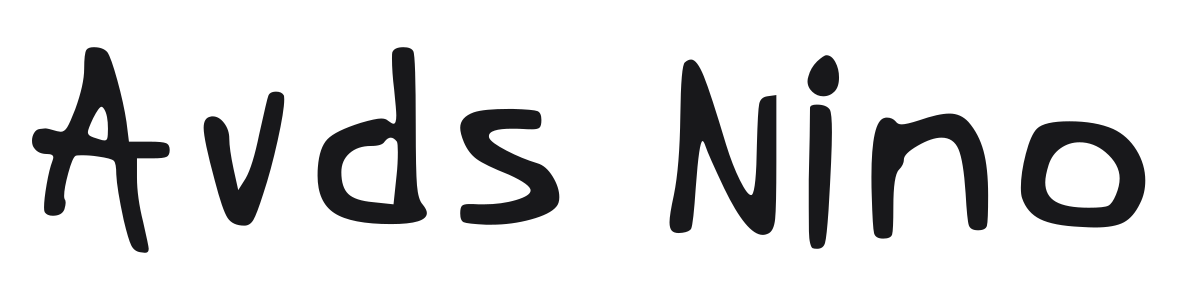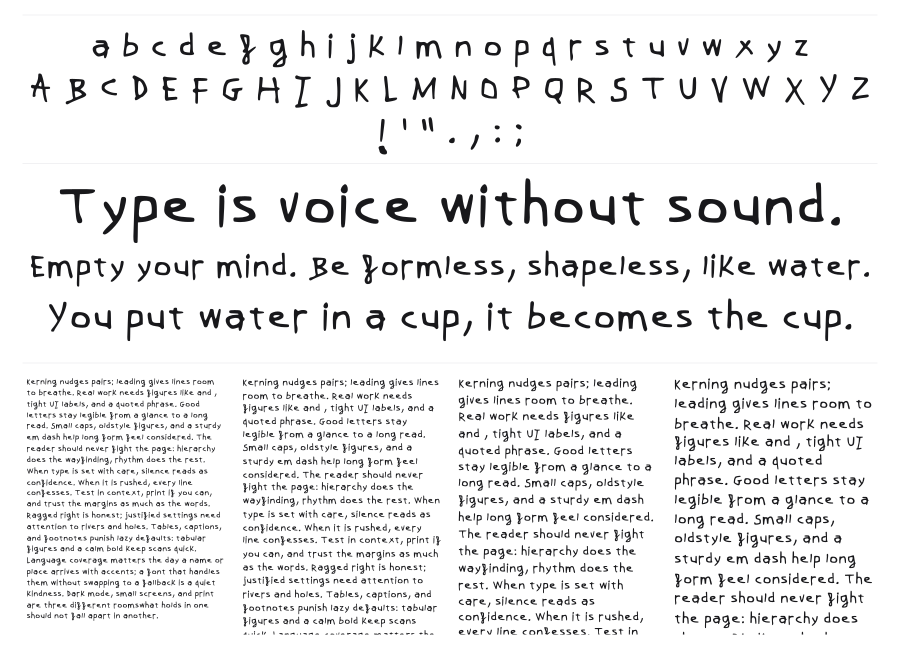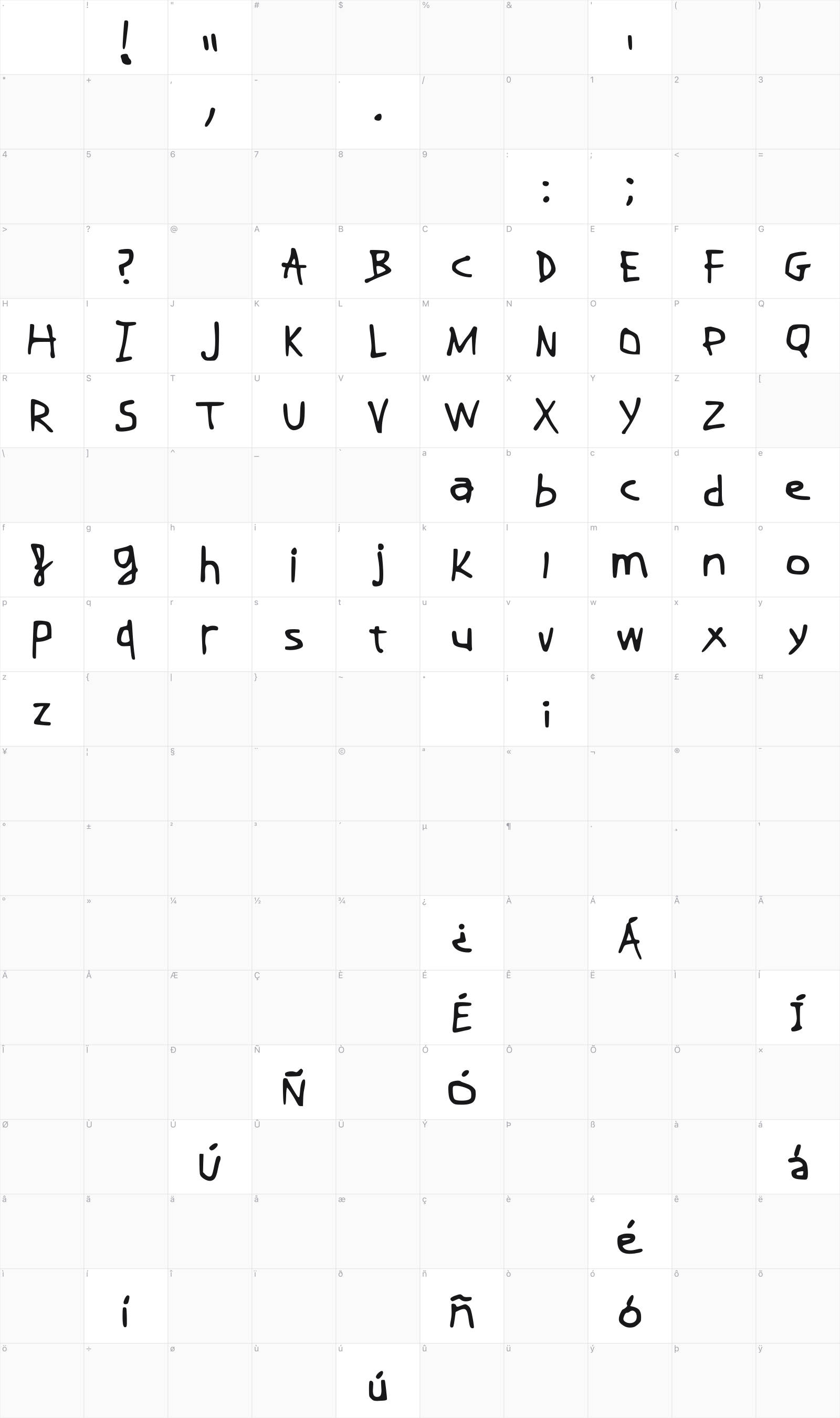
Avds Nino
Avds Nino is a casual handwritten sans-serif that looks like it was drawn with a fine marker on a good day. The letters wobble just enough to feel spontaneous without becoming hard to read. It carries a friendly, personal warmth that works well for informal branding, packaging, or editorial accents.